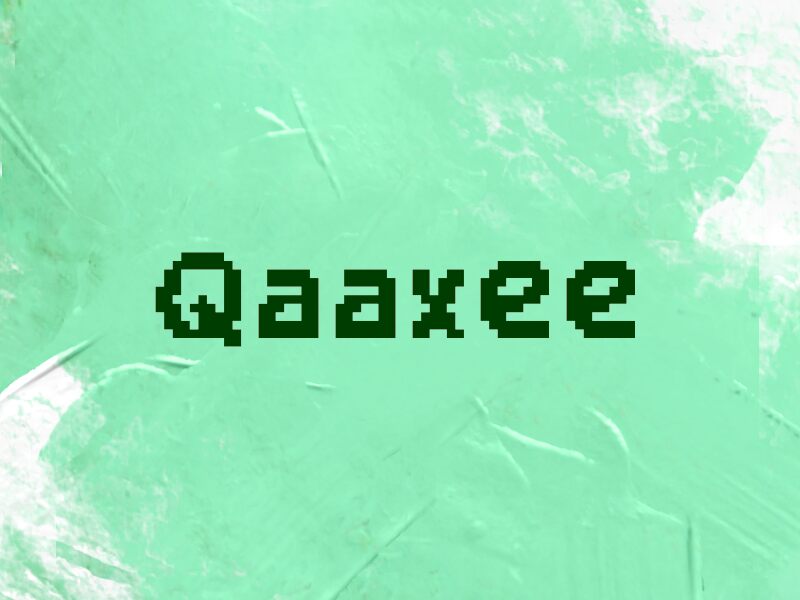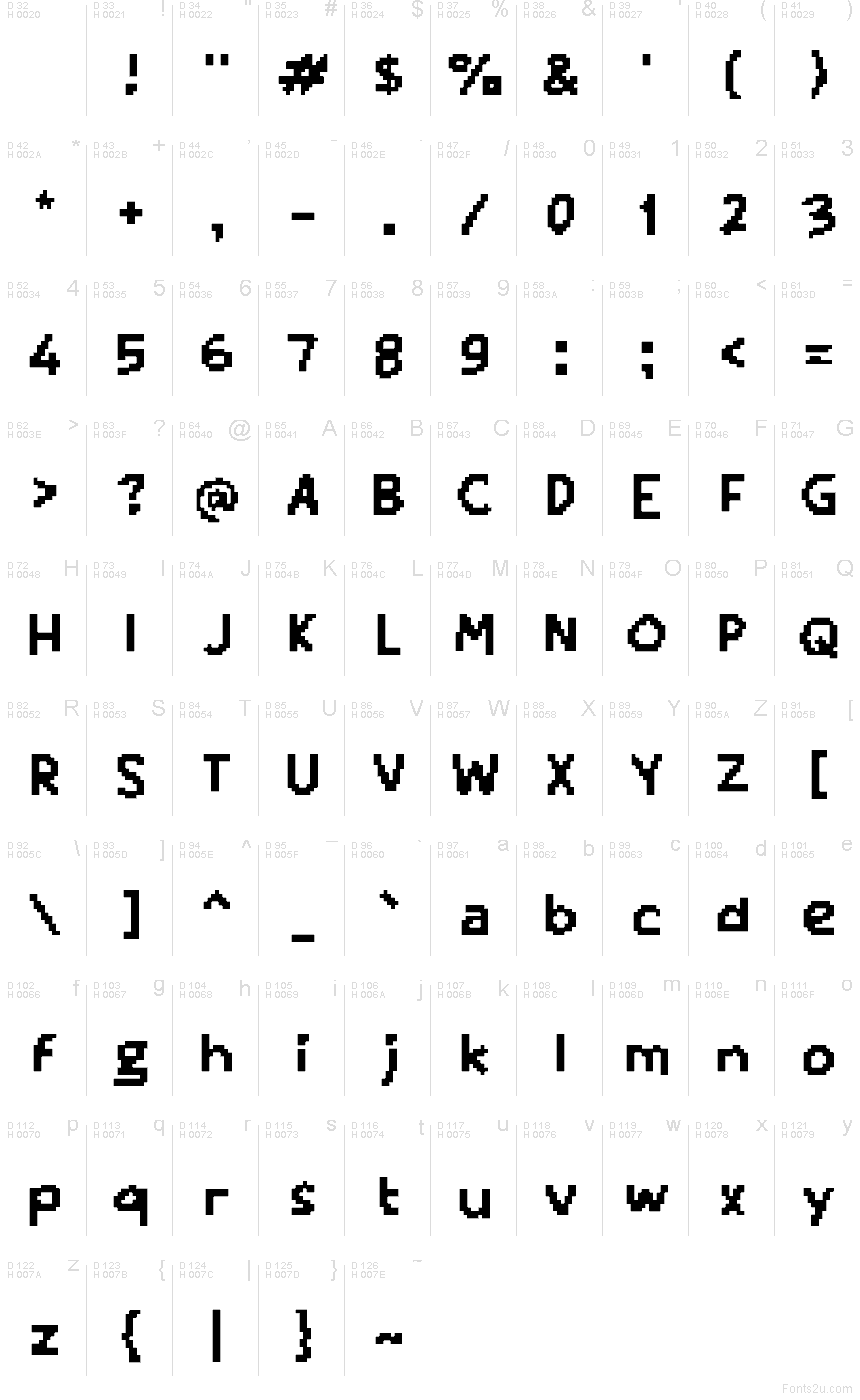
Qaaxee
Qaaxee font by wepfont.com is a free pixelated bitmap typeface with a bold, crunchy 8‑bit feel straight out of early console screens. Its chunky, stepped curves and tight, boxy counters give text a satisfying “block stack” look that reads clearly even at tiny sizes, while still feeling playful and a bit glitchy at larger scales. Every letter feels like it was carved from a grid, making words snap together like tiles.
Using Qaaxee, you can lock in a strong retro gaming mood for arcade titles, game UIs, stream overlays, pixel-art posters, stickers, and app icons. This free font shines when set in all caps for logos or level titles; pair it with a clean, modern sans serif for body copy to keep layouts readable while Qaaxee brings the crunchy nostalgia.